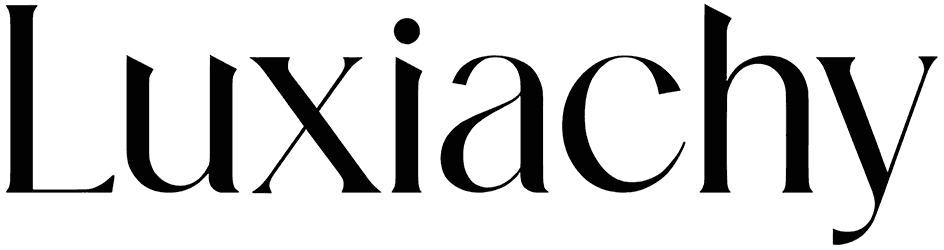
Luxiachy Font
Considering the endless classic charm of Luxiachy and how it changes the mood of your design to make it fancier, you should count yourself lucky to be here. You’ve just found the ultimate elegant font for your branding designs that need to boast a nice upper-class touch.
Suited for your most luxurious projects, this luxury serif font allows you to blow everyone away as you add it to your talent agency business card, property management website logo, and things like that.